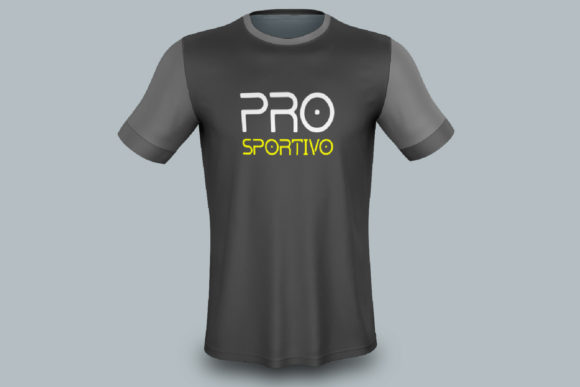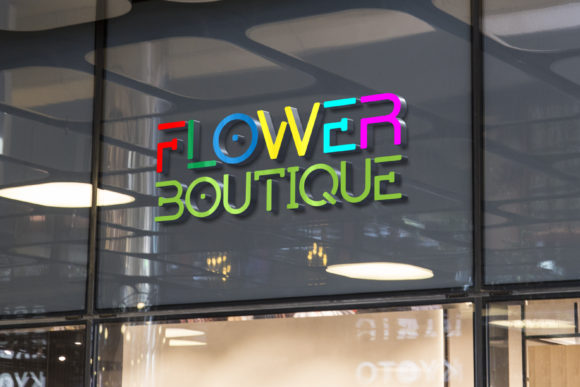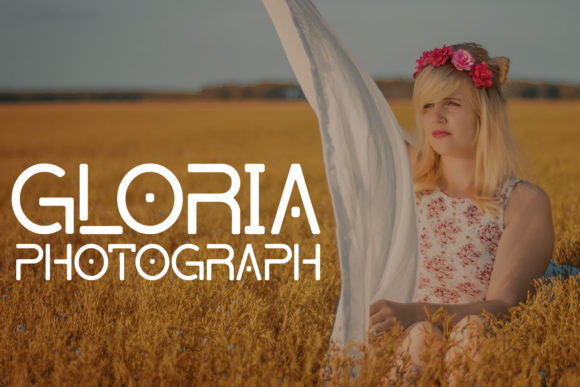
Lamper is a smart and futuristic sans serif font that features an incredibly unique style.
Its disconnected letters evoke an incredibly contemporary and dynamic feel .
Lamper Font offers exceptional quality and versatility, making it a valuable addition to your design toolkit. Whether you’re creating for personal projects or commercial use, Lamper Font delivers professional results.